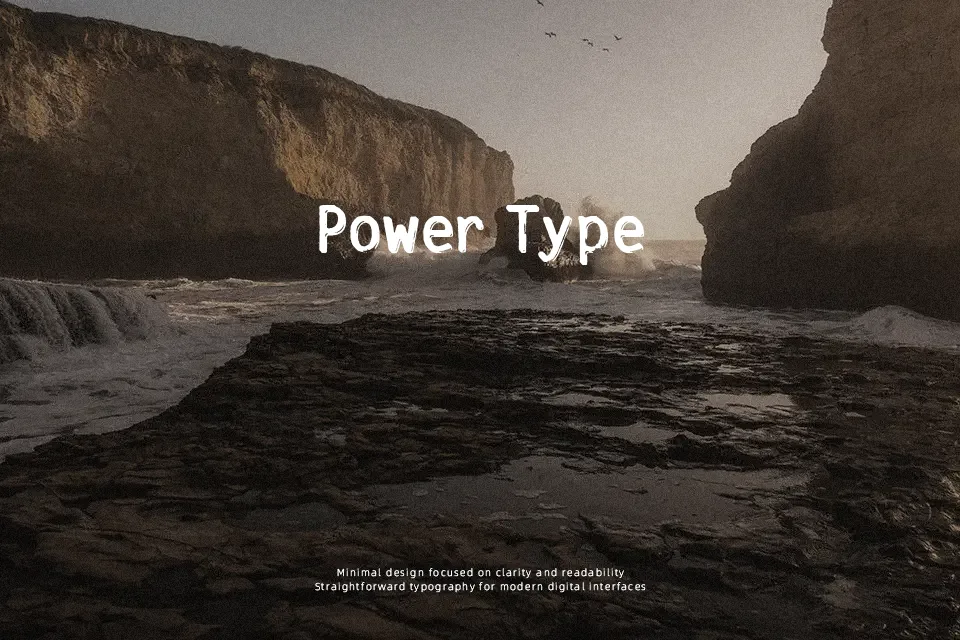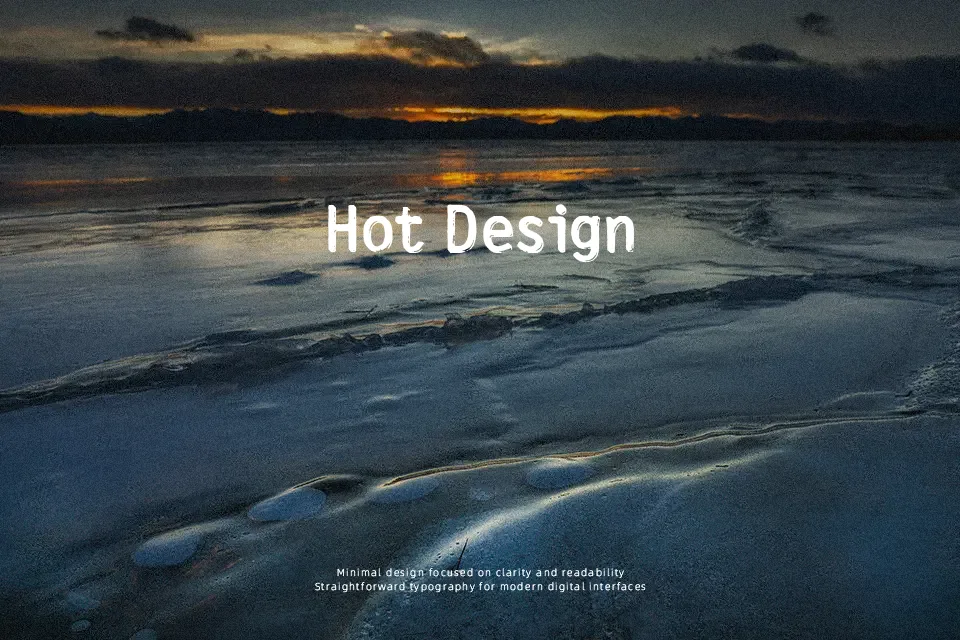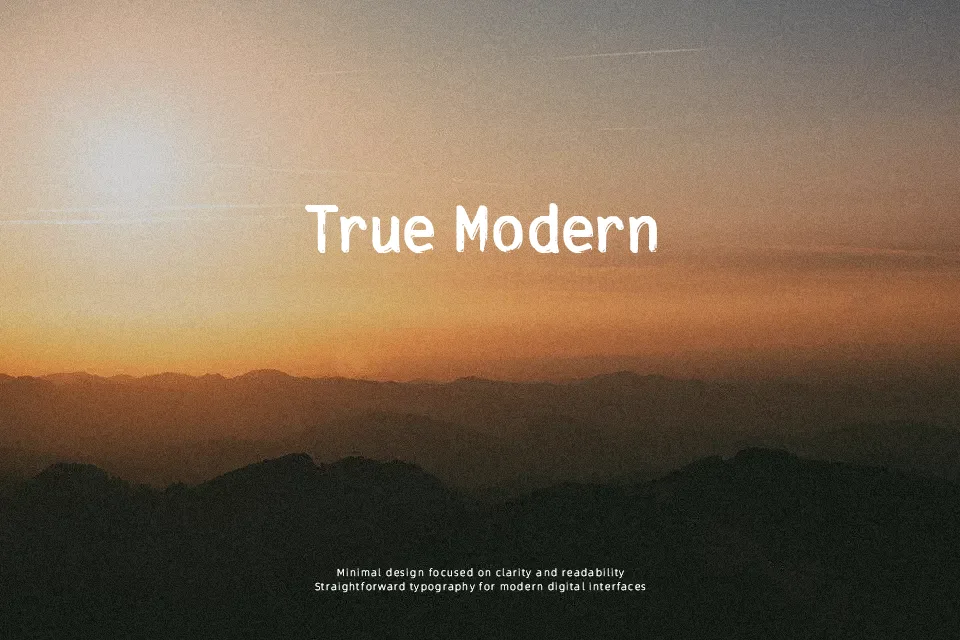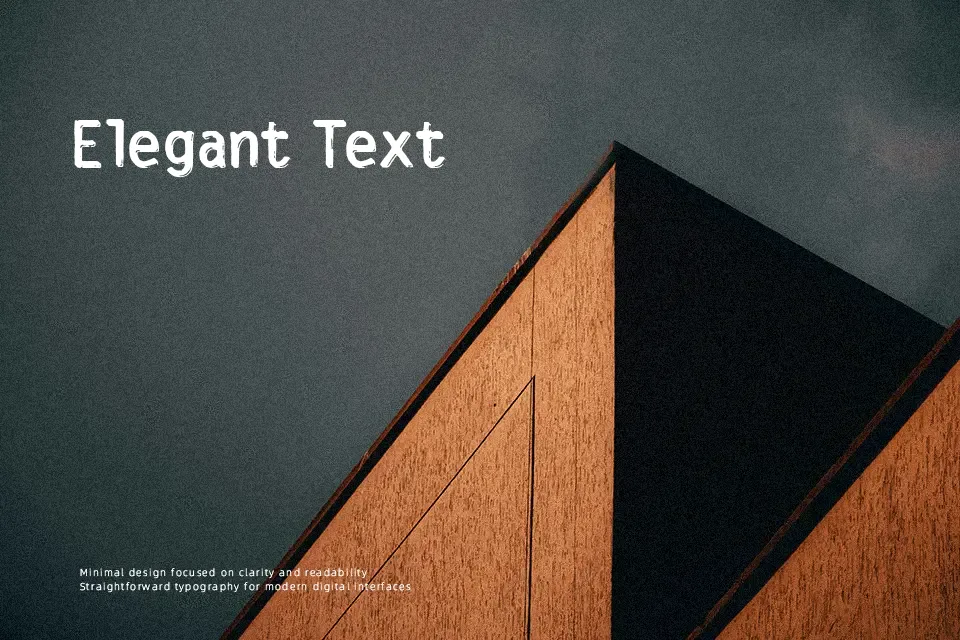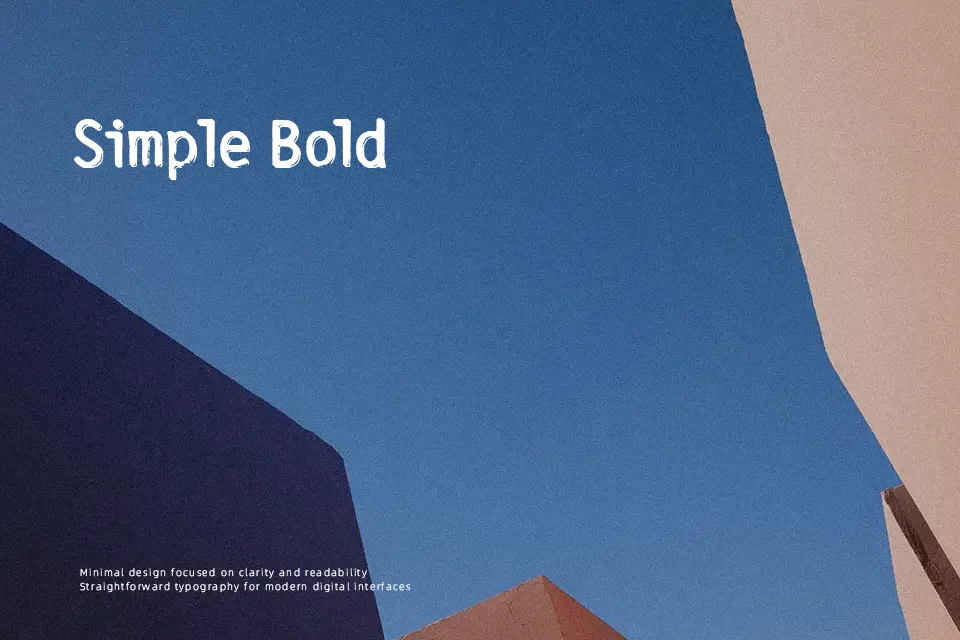
Silvery Tarjey Font
Silvery Tarjey Font introduces a softened typewriter aesthetic with consistent monospaced proportions, rounded stroke terminals, and low stroke contrast. The uniform character widths and generous internal counters produce an approachable mechanical cadence across short lines of display text. In practical design settings, the typeface excels in vintage posters, craft packaging labels, and nostalgic book titles where tactile personality is essential. However, the wide letter spacing and distinctive mechanical styling become less effective in dense body text and small user interface elements. For display applications requiring characterful retro realism, the balanced stroke weight maintains reliable legibility at medium to large scale.
Best For: vintage posters,craft packaging labels,nostalgic book titles,editorial display headers
Not Ideal For: continuous long-form body text,dense spreadsheet layouts,small user interface elements
Perfect for branding, editorial, and headline, with a creative and display style.